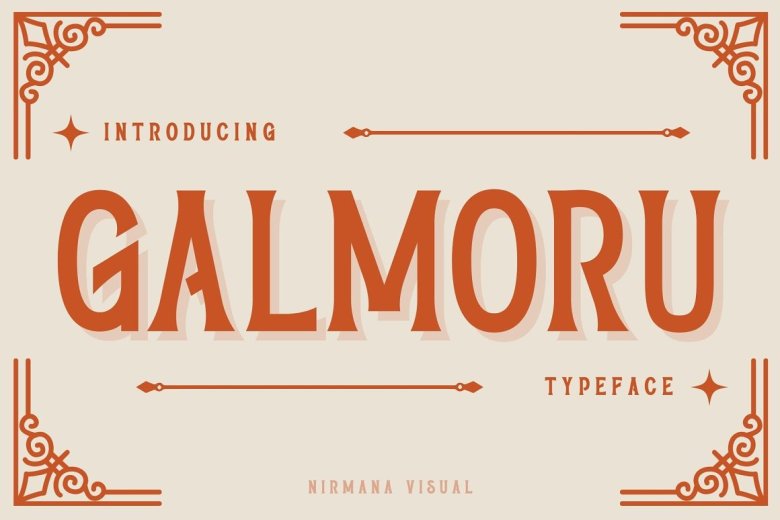
Galmoru Font
Galmoru is a modern serif font that brings stunning typographic equilibrium to a range of designs including; logos and branding, social media posts, commercials, publications, postcards, product designs, and more!
Galmoru Serif Font